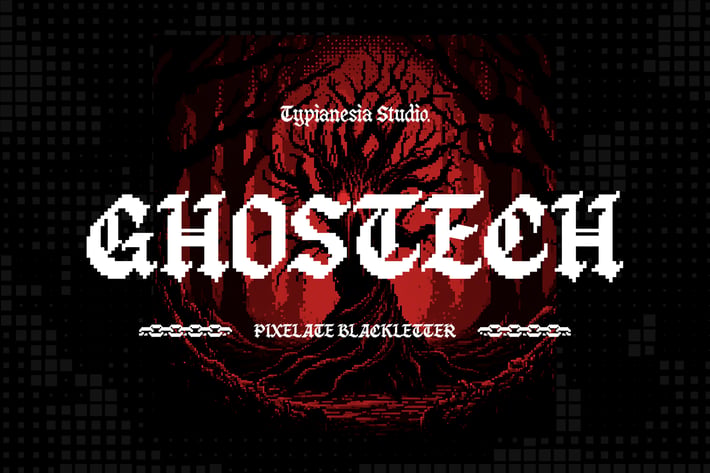
Ghostech - Pixelate Blackletter Display Font
Ghostech - Pixelate Blackletter Font - Digital Classic Decorative Display Font
Ghostech is a Pixelate Blackletter font that merges the classic aesthetic of blackletter typefaces with a modern pixelated design. This fusion creates a unique visual identity. Designed for versatility, Ghostech is suitable for a wide range of applications, from digital and print media to branding, signage, and gaming projects. Its distinctive style adds a touch of nostalgia and sophistication to any design. Comes with complete support for uppercase and lowercase letters, punctuation marks, numerals, and multilingual characters, Ghostech offers comprehensive functionality. The inclusion of ligatures and alternates enhances its flexibility, allowing for greater creative expression. Crafted with expertise in both blackletter and pixel font design, Ghostech showcases a meticulous attention to detail. Its intricate pixelation and bold blackletter strokes demonstrate the skillful fusion of two distinct typographic styles.